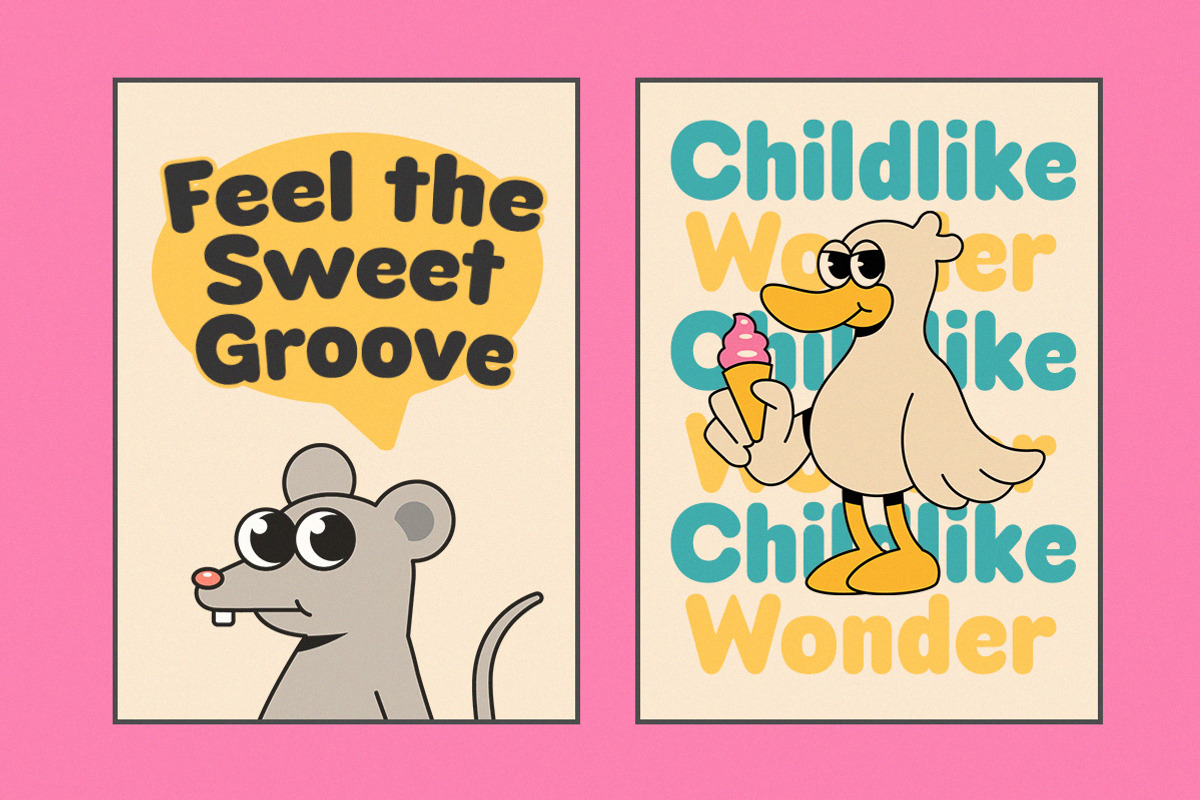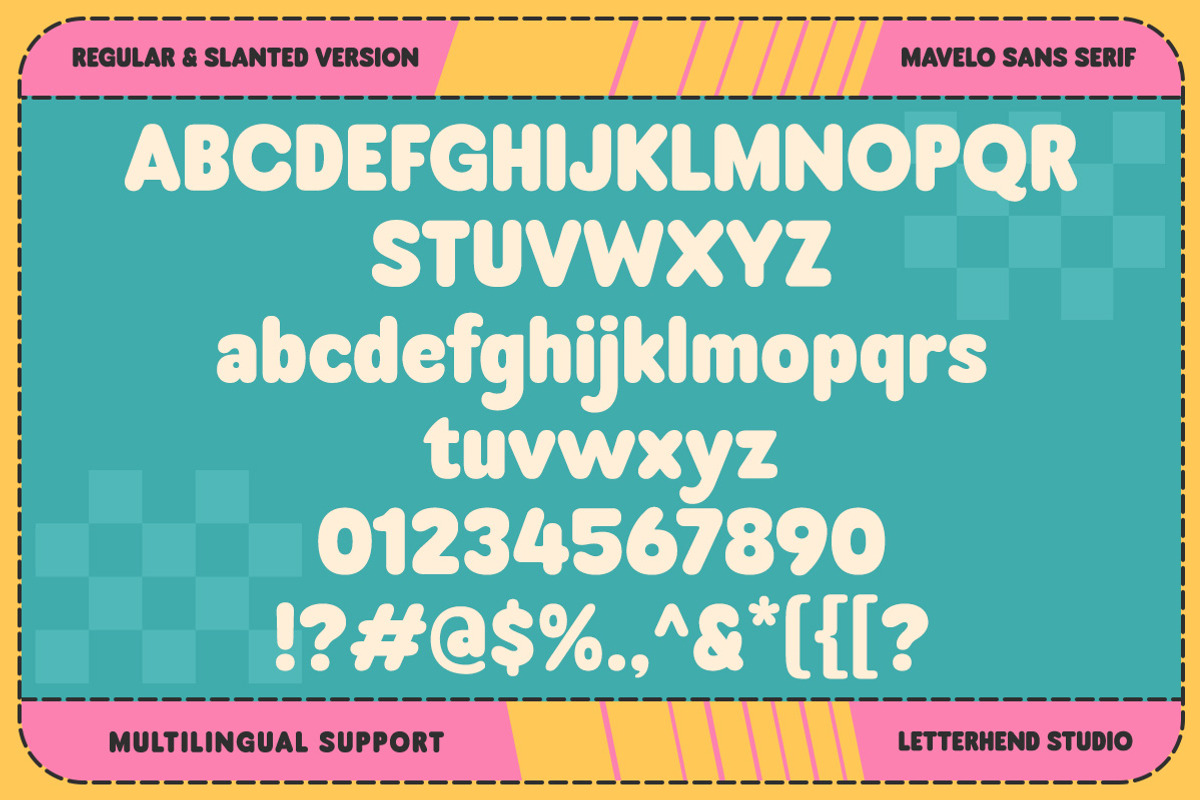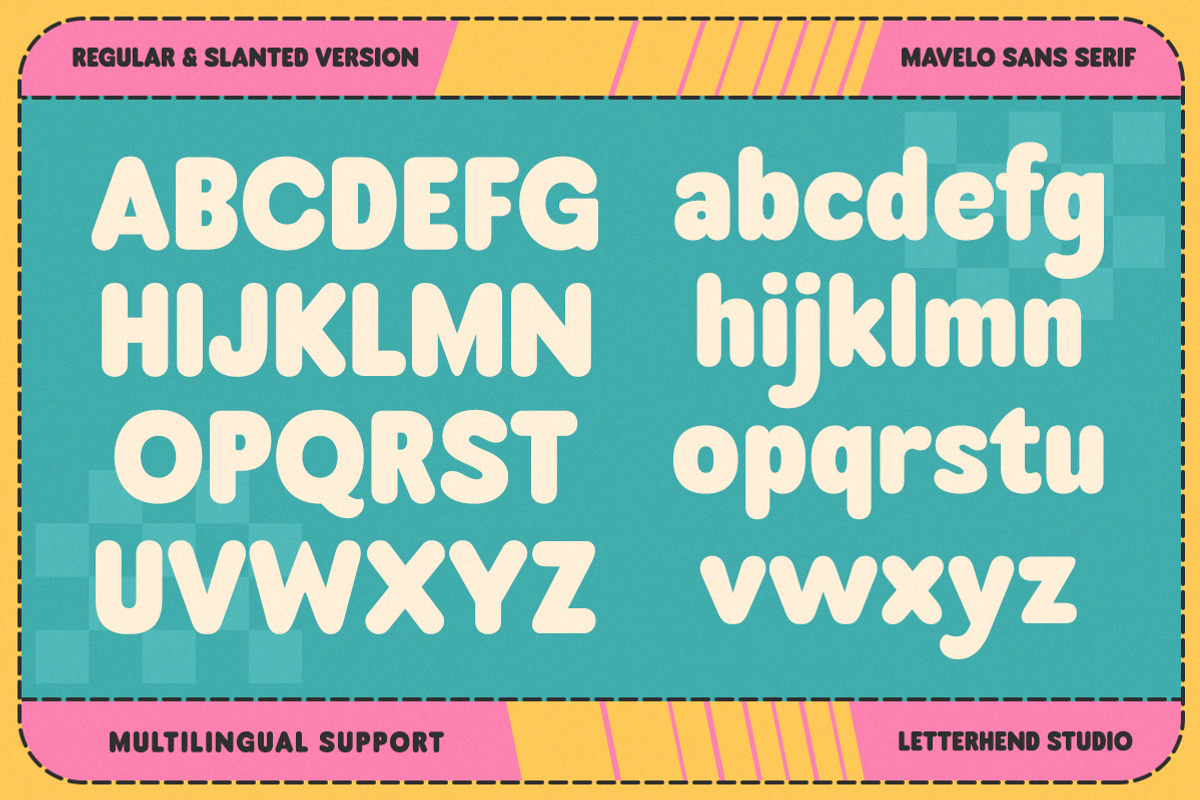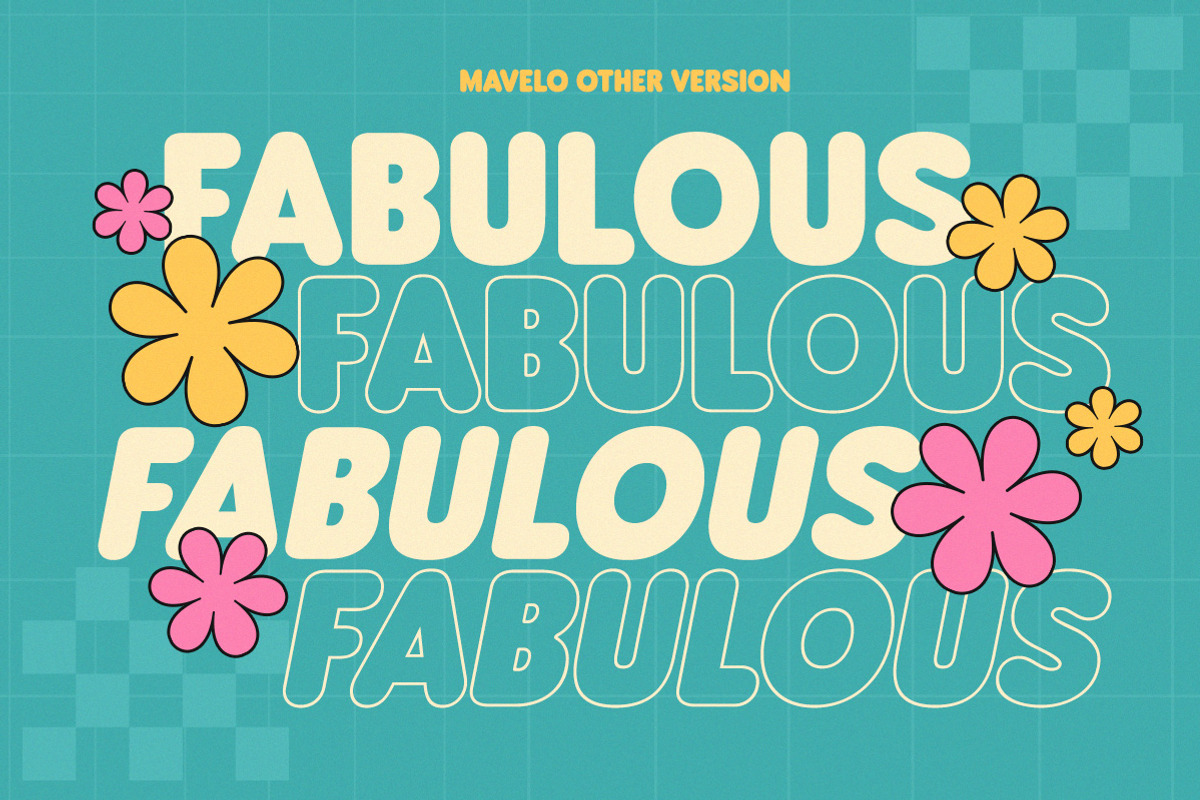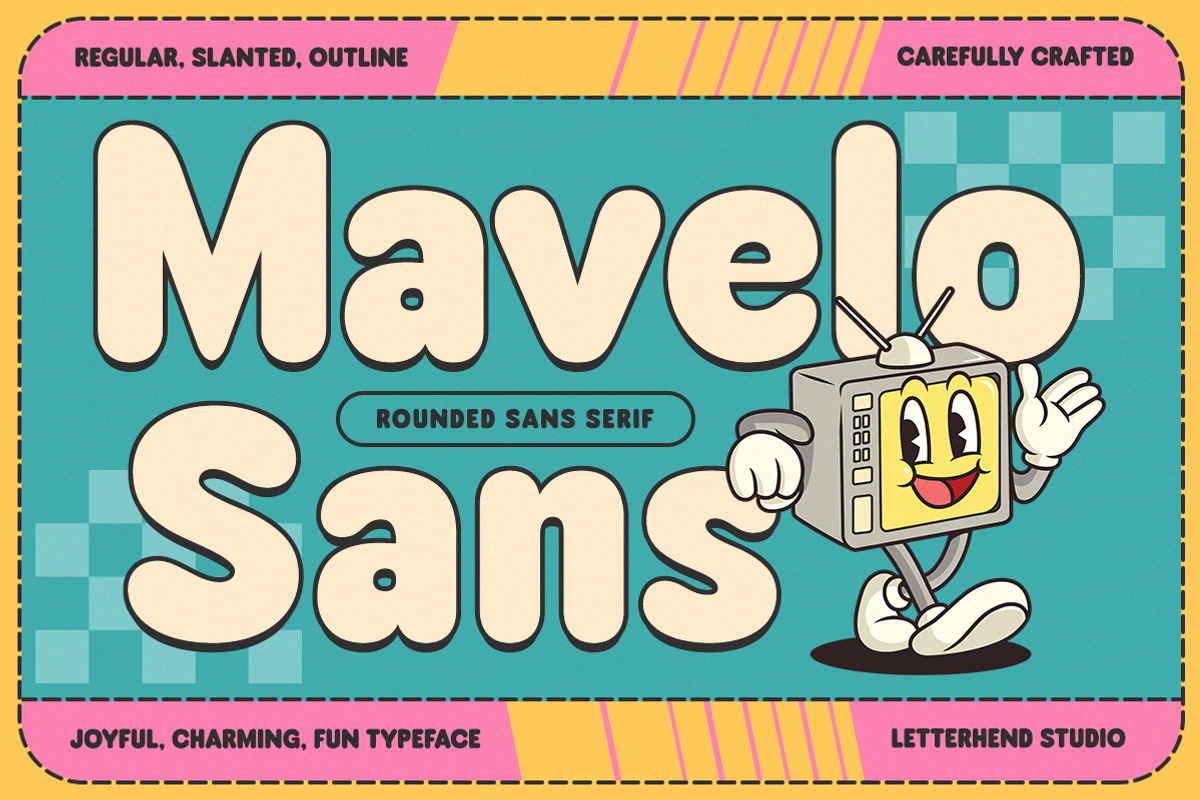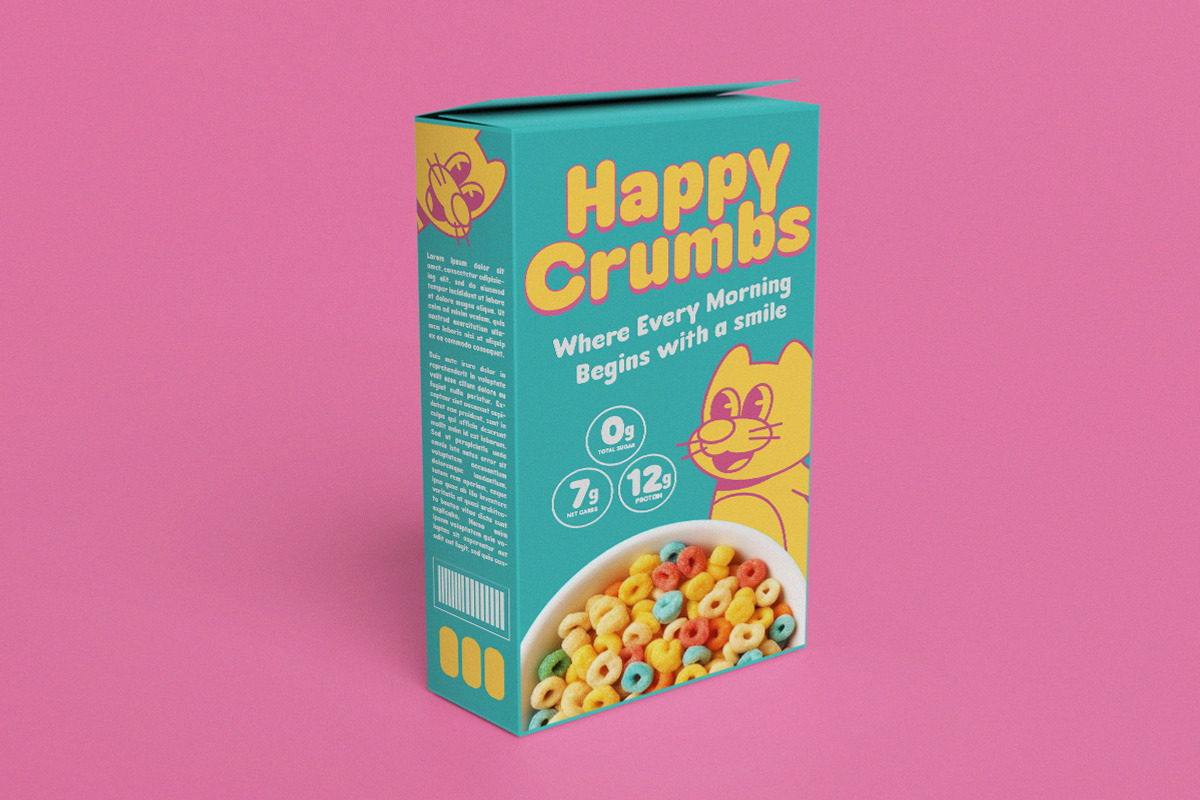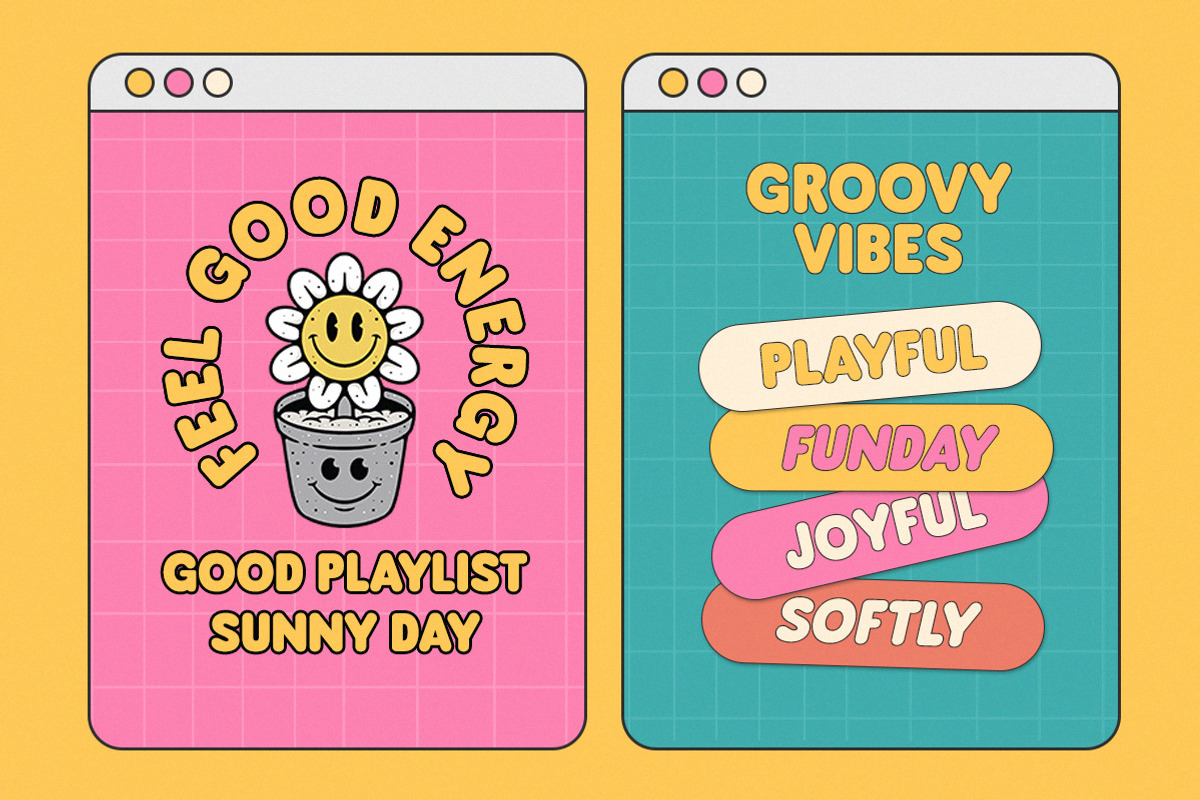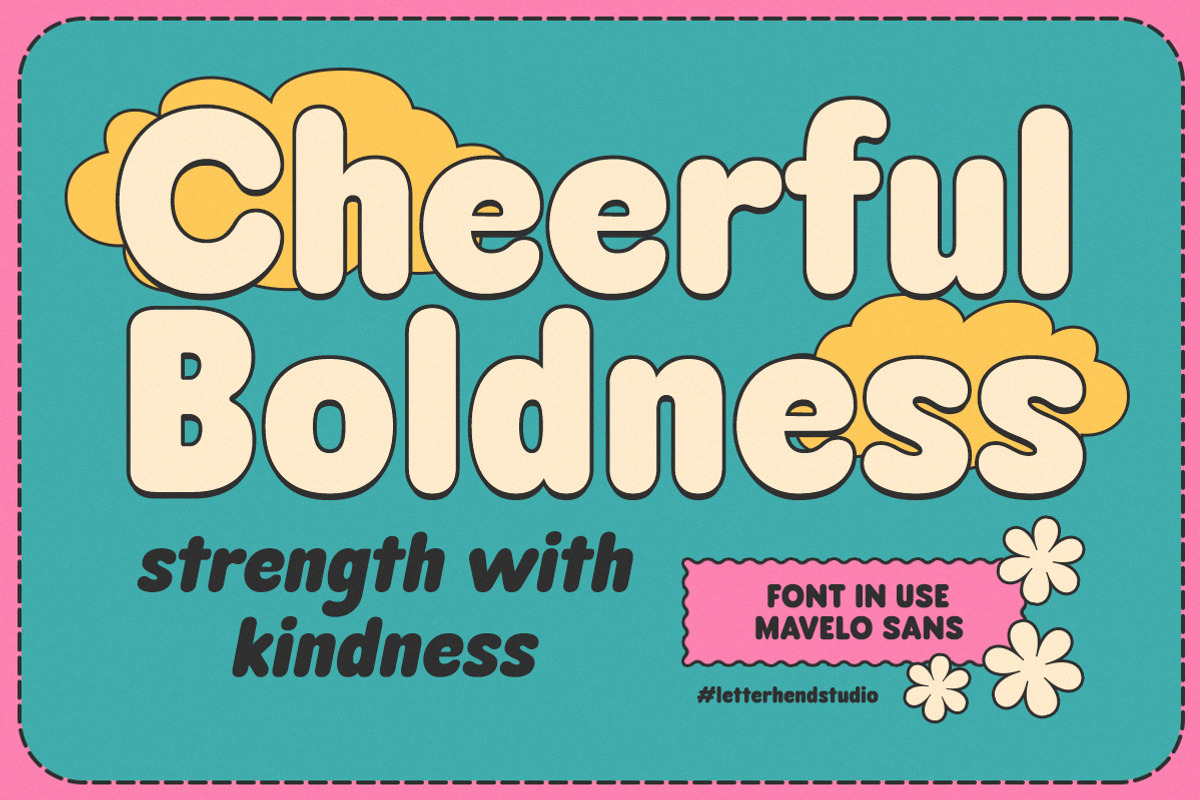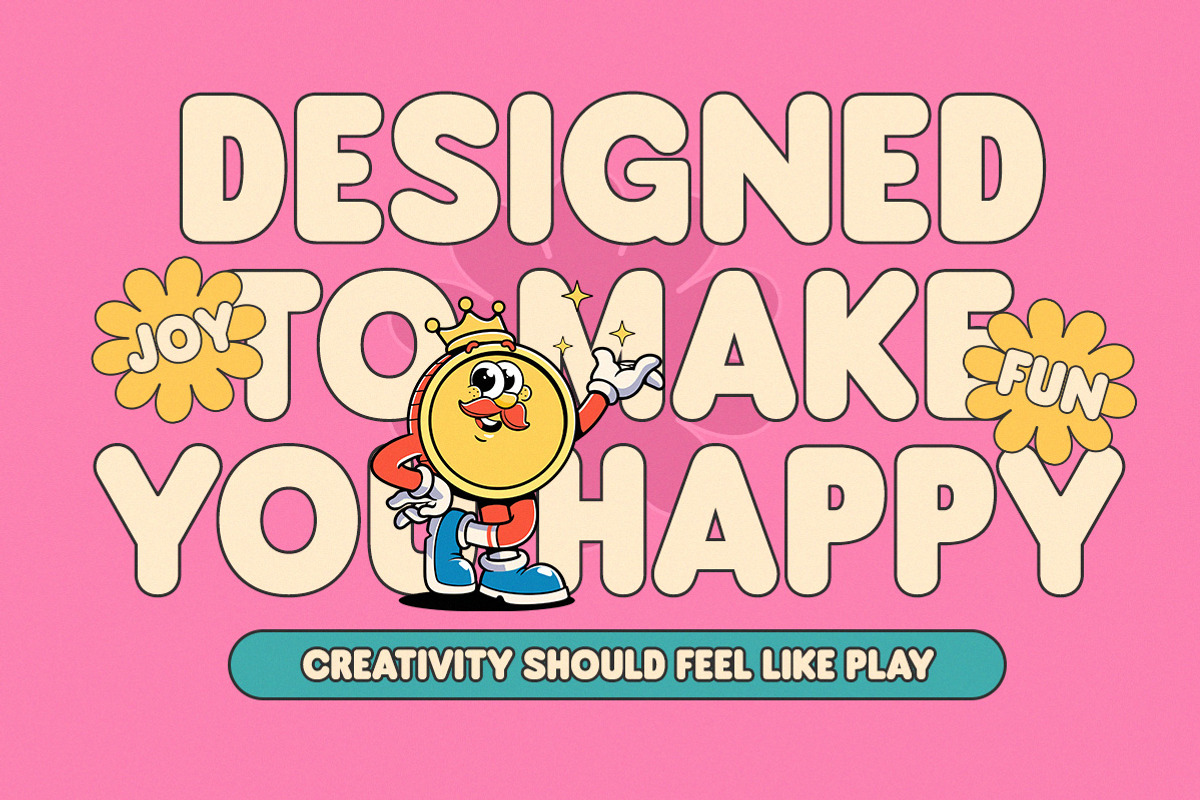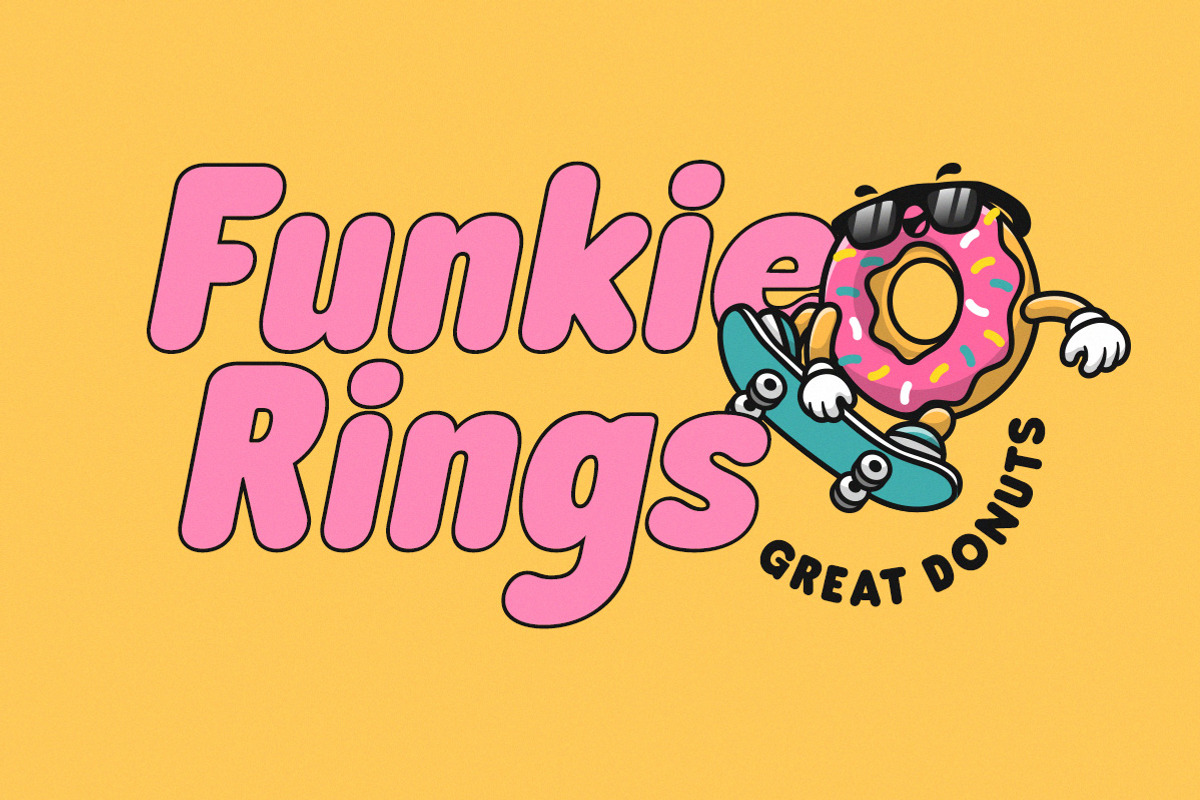
Mavelo Retro Sans Serif
Mavelo Sans is a cheerful rounded sans-serif font that radiates joy, charm, and playfulness. Its soft corners and bold letterforms create a friendly, approachable look perfect for children’s projects, logos, packaging, posters, and digital designs. The font’s retro-inspired style adds a nostalgic yet modern feel, offering versatility with regular, slanted, and outline versions.